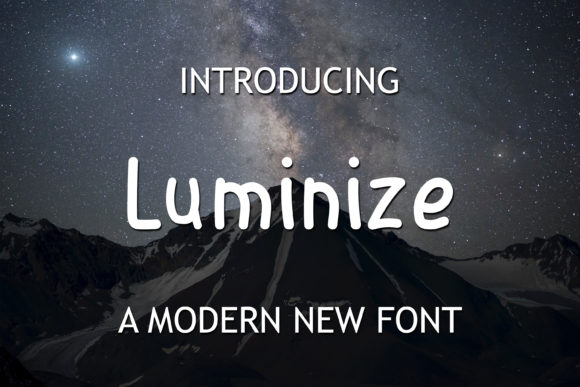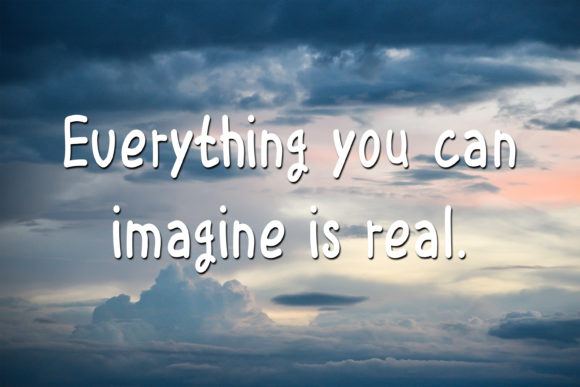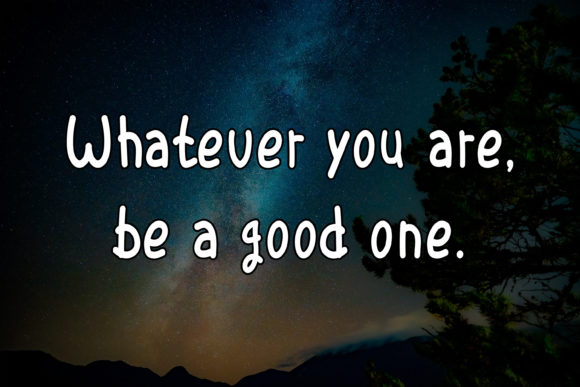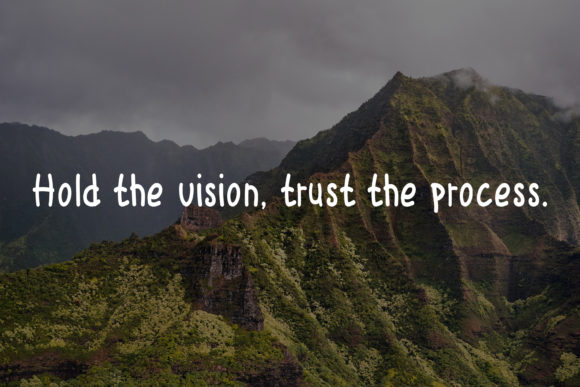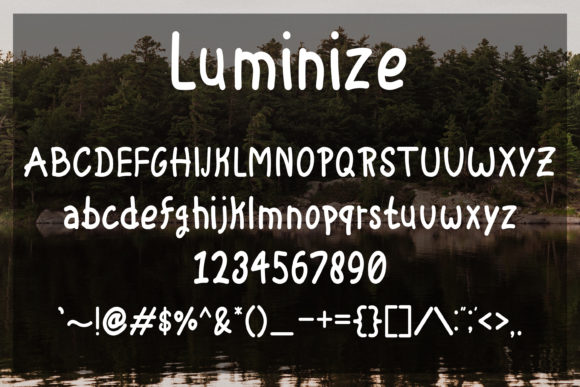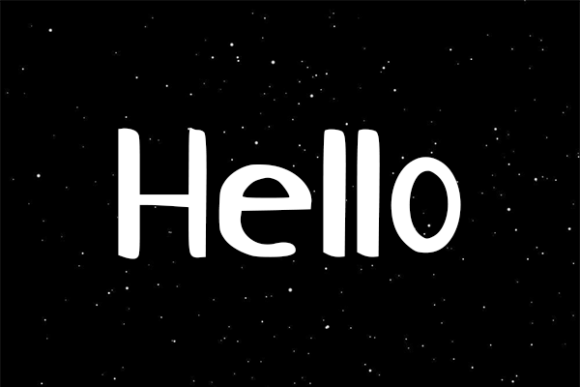
Luminize Font
About Luminize Font
Luminize is a simple, adaptable and friendly handwritten font. This font was particularly crafted for those who need a clean and refreshing look to their designs.